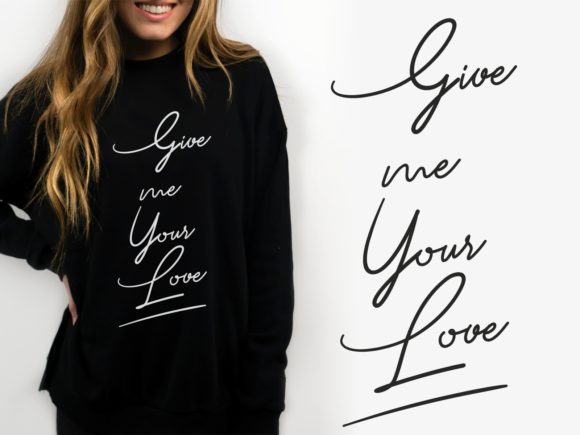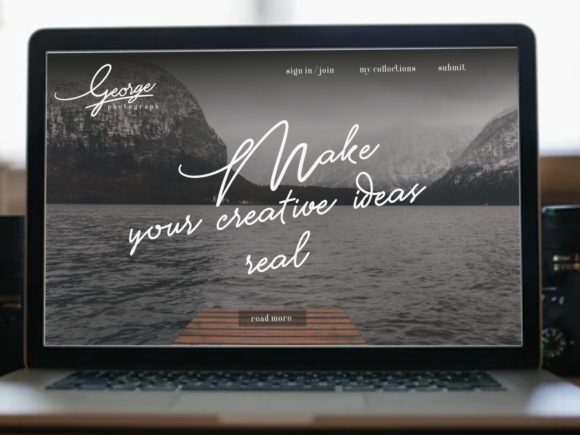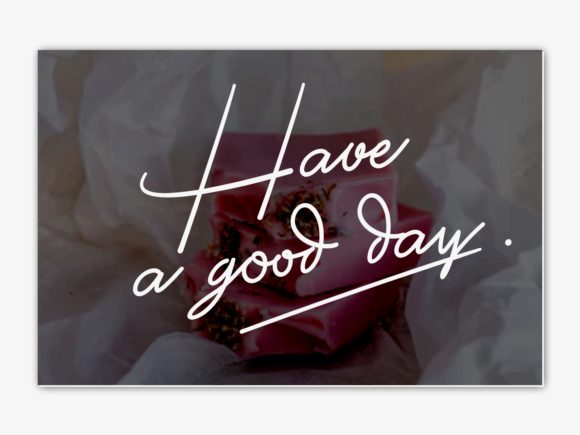
Introduction to Louis Robert Font
As a designer, there’s nothing quite like the thrill of bringing a creative project to life. Whether it’s crafting a stunning logo, creating a beautiful signature, or designing a captivating cover title, the right font can make all the difference. And when it comes to elegant script fonts, few are as versatile and high-quality as the Louis Robert Font.
With its beautiful, well-balanced characters and PUA encoding, the Louis Robert Font is an invaluable design resource that can elevate any creative project. By providing a transparent background and easy access to all glyphs and swashes, this font makes it simple to add a touch of sophistication and style to your work. And the best part? The Louis Robert Font is available for free download, making it an accessible and valuable addition to any designer’s toolkit.
Whether you’re a seasoned pro or just starting out, the Louis Robert Font is an essential tool for any designer looking to take their work to the next level.
Key Features of Louis Robert Font
- High-quality, professional font design ideal for creative projects
- Comes with a transparent background, making it easy to integrate into various design resources
- Unique, elegant design with a touch of sophistication, perfect for branding and marketing materials
Honest Review: Louis Robert Font
I recently came across the Louis Robert Font and I must say, it’s a great addition to any design resource collection. This free download offers a high-quality font that’s perfect for creative projects.
- ✨ The font’s modern and elegant design makes it perfect for a variety of projects, from fashion to tech.
- ✨ The transparent background allows for easy customization and flexibility in design.
- ✨ The font is highly legible, making it perfect for body text or headings.
- ⚠️ The font may not be suitable for very large text sizes, as the design may become less legible.
- ⚠️ The font family is relatively small, so it may not be as versatile as some other fonts.
Overall, I’m impressed with the Louis Robert Font. It’s a great free download that can add a touch of sophistication to any creative project. While it may have some limitations, it’s definitely worth checking out for designers looking for a high-quality font.
To get the most out of the Louis Robert Font, use it on a transparent background to create a clean and modern design. You can also experiment with different font sizes and styles to add visual interest to your project.
Common Use Cases for Louis Robert Font
The Louis Robert Font is ideal for a variety of creative projects, including logos, business cards, and brochures. It’s also a great choice for web design and digital marketing materials.
Comparison to Louis Robert Font: Abril Fatface has a more refined and classic look, whereas Louis Robert Font is more modern and minimalist.